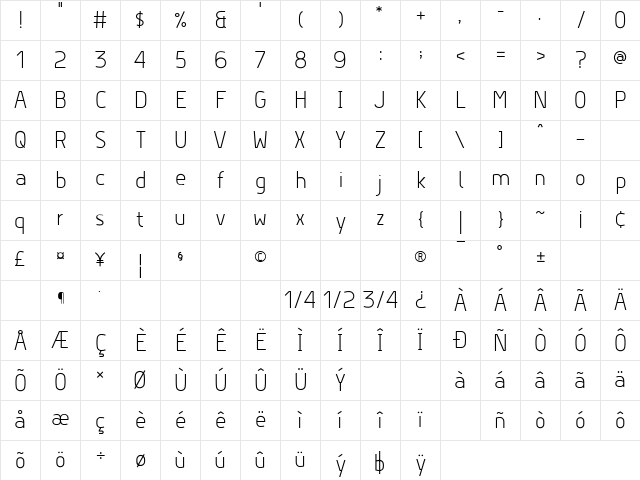
Complete Mom I love you so much ! Regular glyph index. Displaying only characters natively supported by Mom I love you so much ! Regular font.
Mom I love you so much ! is a composed and adaptable typeface that performs quietly and consistently across a wide range of design contexts.